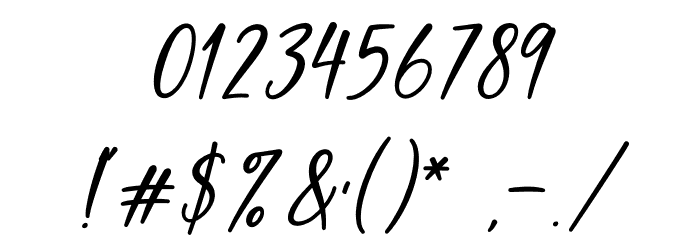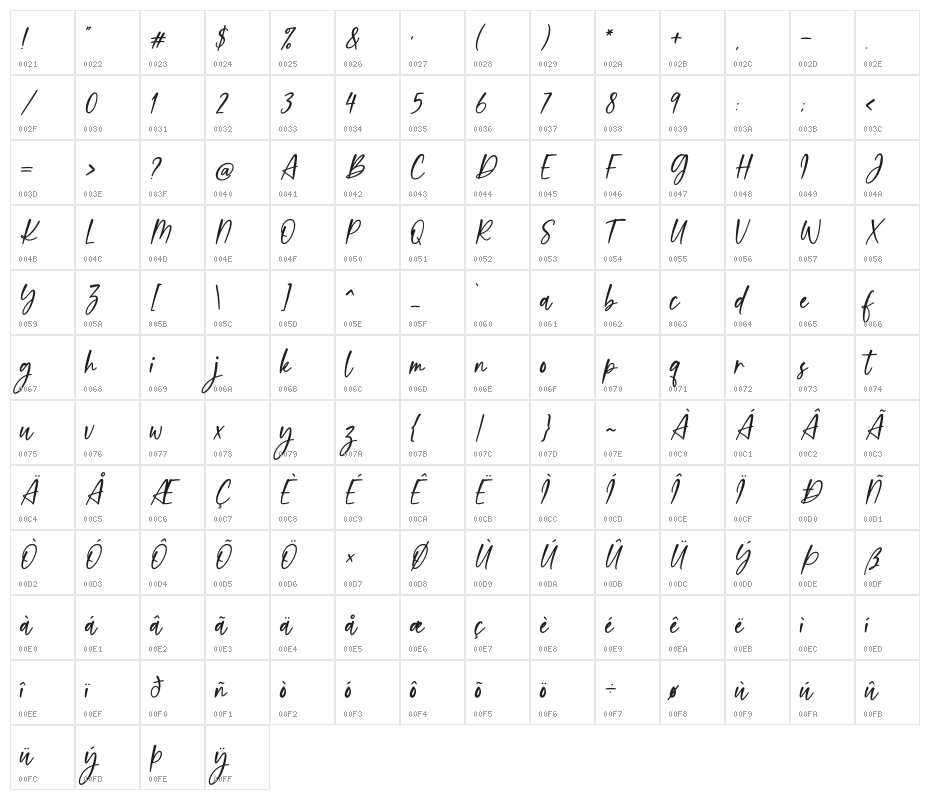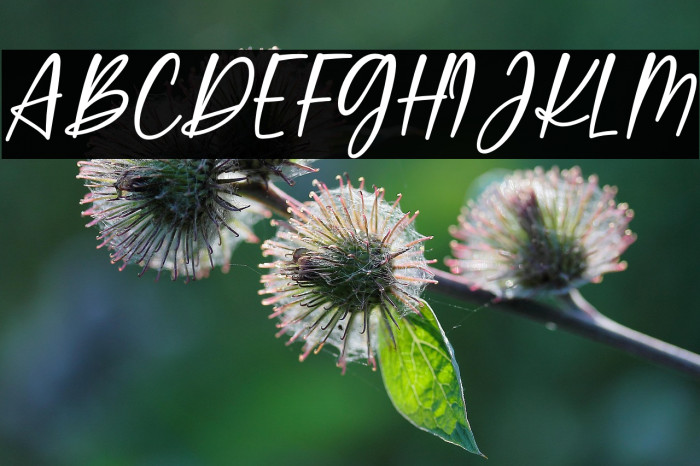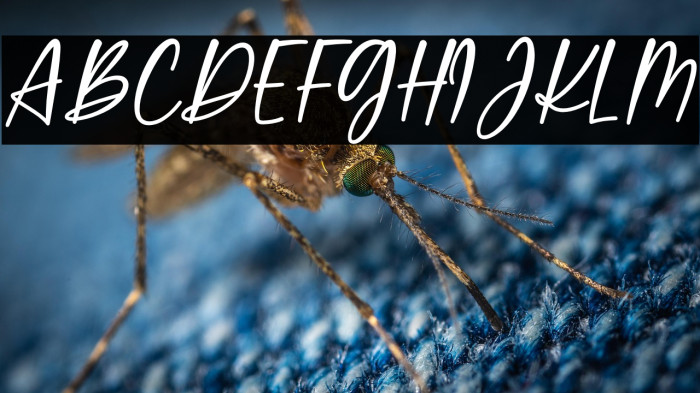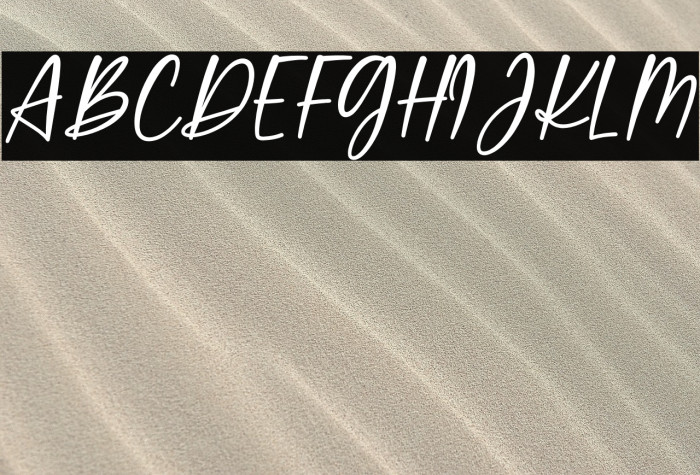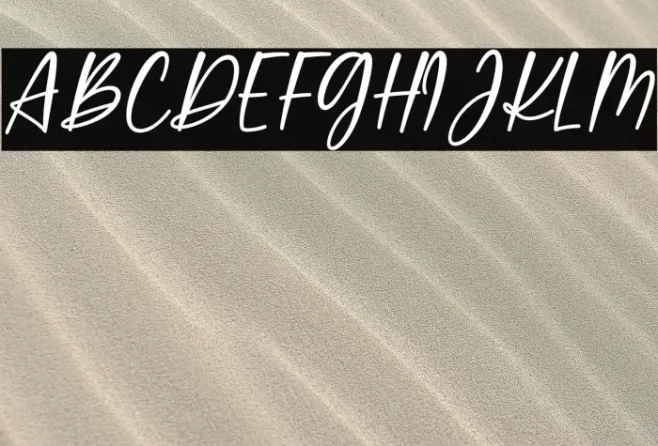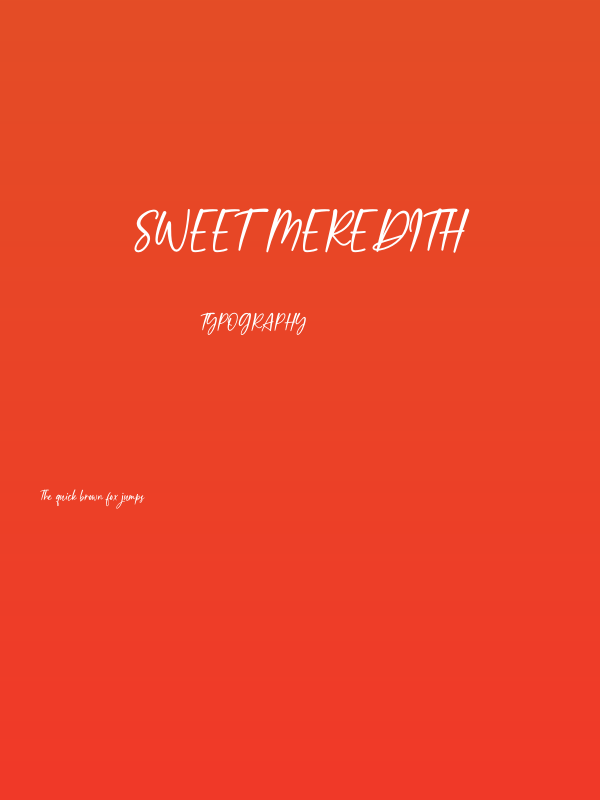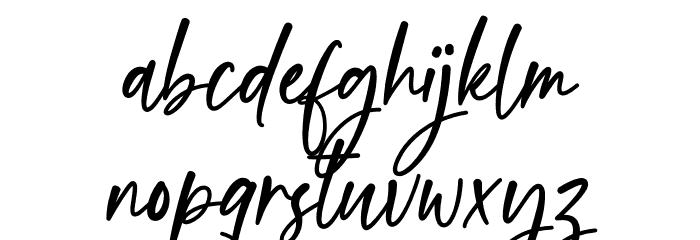
Sweet Meredith Font
Sweet Meredith Description
This font exudes a lively and expressive handwritten style, characterized by its fluid and dynamic strokes. The letters are slightly slanted, giving it a casual yet elegant appearance. The uppercase letters are bold and prominent, while the lowercase letters maintain a consistent flow, enhancing readability. The numerals and special characters are crafted with the same attention to detail, ensuring a cohesive look across all elements. The overall design is both playful and sophisticated, making it suitable for a variety of creative applications.